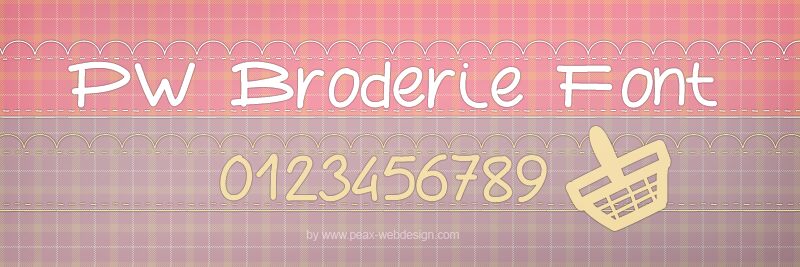
PW Broderie by Peax Webdesign is a free decorative display font with broad, rounded strokes and uneven proportions. Its oversized circular curves sit beside narrow uprights and pinched joins, with changing stroke widths and generous gaps lending the letters the direct look of marker-drawn signage.
Independent craft shops and sewing labels could use its informal construction to turn small-batch packaging and window signage into part of a warm handmade product story. Event posters, children's publishing, cheerful social graphics, and craft-fair promotions are also convincing settings for families and makers who enjoy playful design and are drawn to DIY culture, classroom crafts, and homespun illustration.